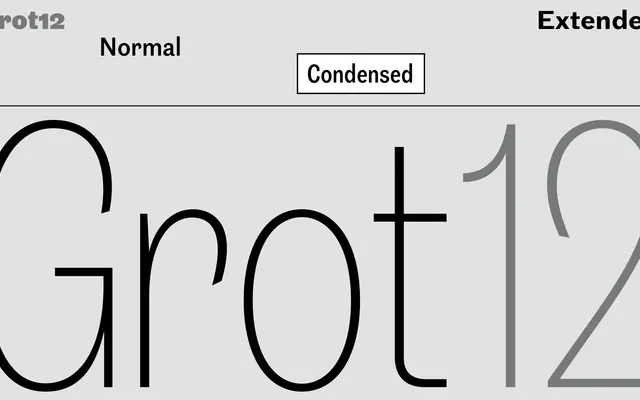
Grot12 Condensed
A condensed grotesque drawing on the Stephenson Blake Grotesque series, forming one third of A2-Type's three-width Grot12 family.
Grot12 Condensed is part of a wider family that spans three widths — Condensed, Normal and Extended — each sharing a common grotesque DNA anchored in the British Industrial Revolution. The Stephenson Blake Grotesque types serve as a reference point, lending the design its characteristic closed apertures and even stroke rhythm. Fourteen styles in the Condensed cut run from Thin to Black with matching italics throughout.
Inspired by Stephenson Blake's Victorian-era Grotesque series, Grot12 sits firmly in the British grotesque tradition rooted in the Industrial Revolution. The condensed width is one of three in an interconnected multi-width family.